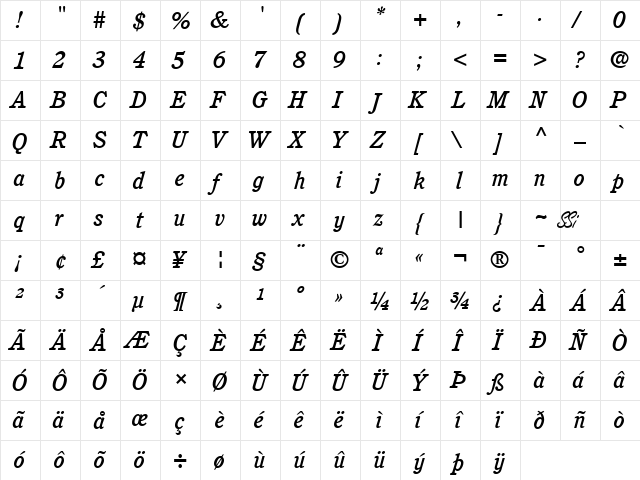
Perspective Medium SSi Medium Italic Font Preview
Perspective Medium SSi Medium Italic
Perspective Medium SSi Medium Italic Font Details
Design Context for Perspective Medium SSi Typeface
Perspective Medium SSi offers clean, dependable letterforms without strong stylistic allegiance, making it a practical choice for designers who need flexibility. Its italic angle brings a sense of urgency and motion to the letterforms.